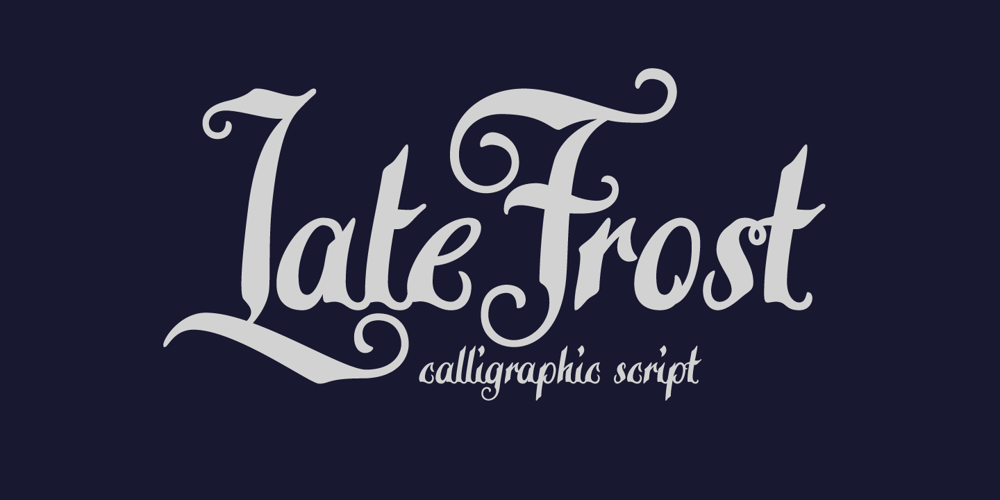
Late Frost Font Family was designed by Gleb Guralnyk and published by Gleb Guralnyk. Late Frost contains 1 styles and family package options. This calligraphic script font is called Late Frost. It’s an elegant decorative font with lots of ligatures and multilingual support.